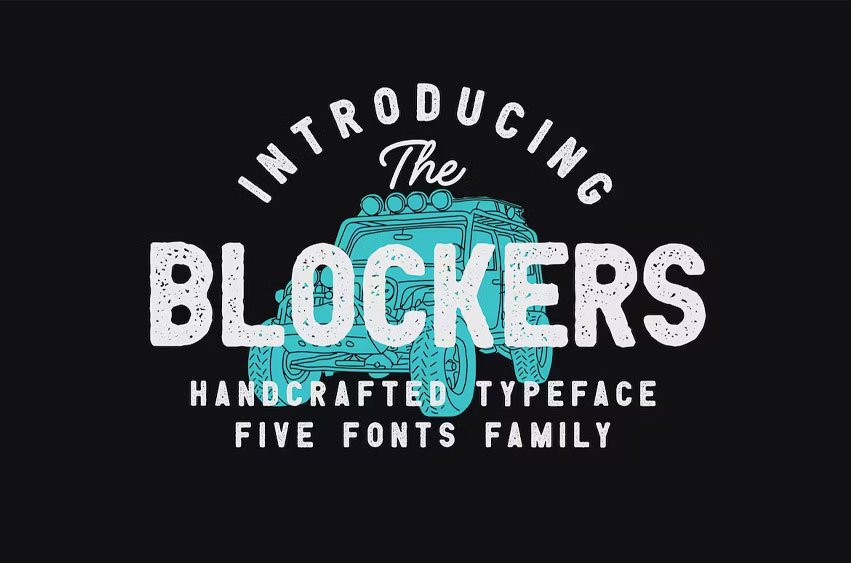
Blockers 5 Font sans. This sans serif font designed with carefully handcrafted also this font have 5 fonts family, very suitable for t-shirt, vintage design, sign, badge, labels, and many more!